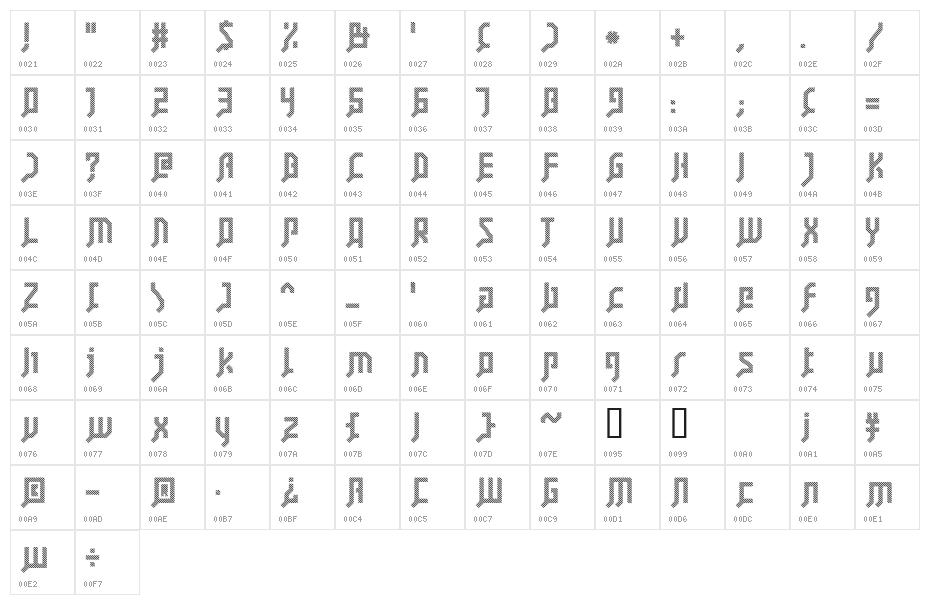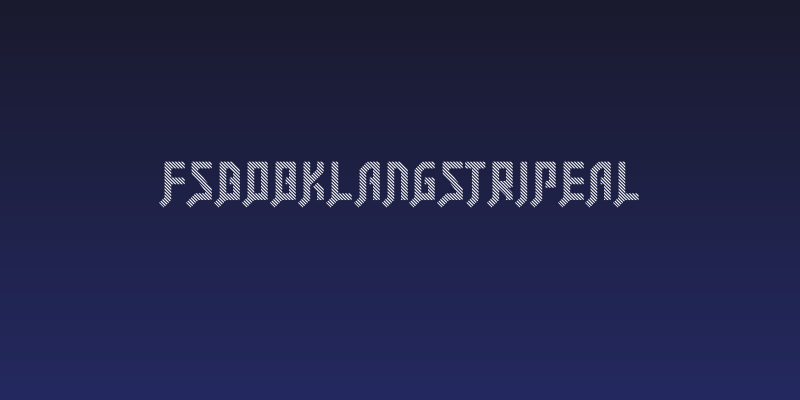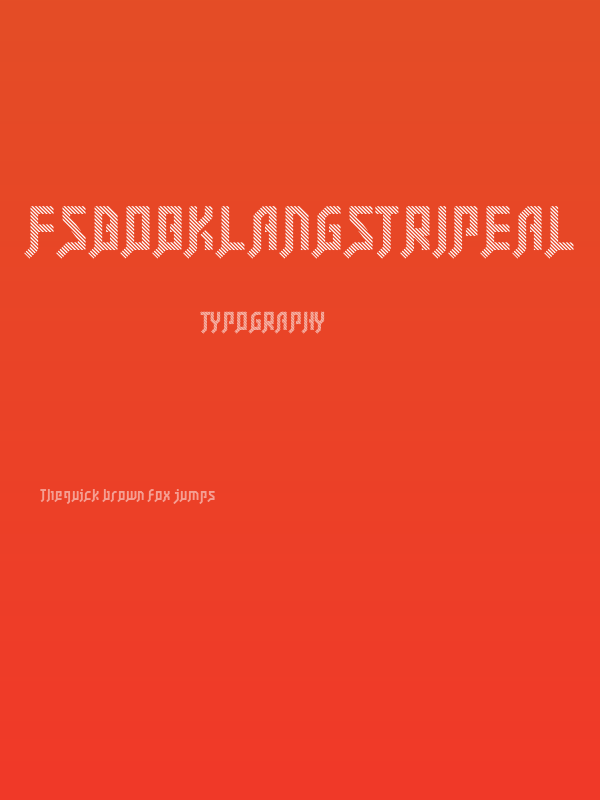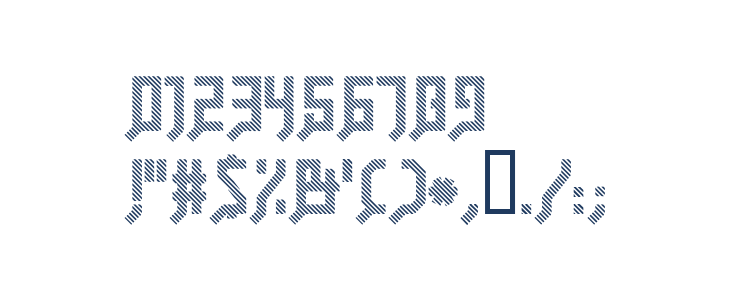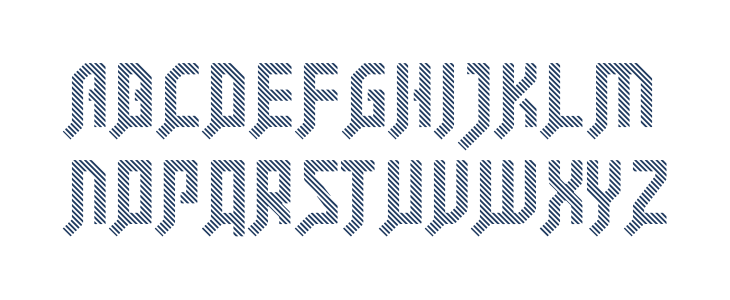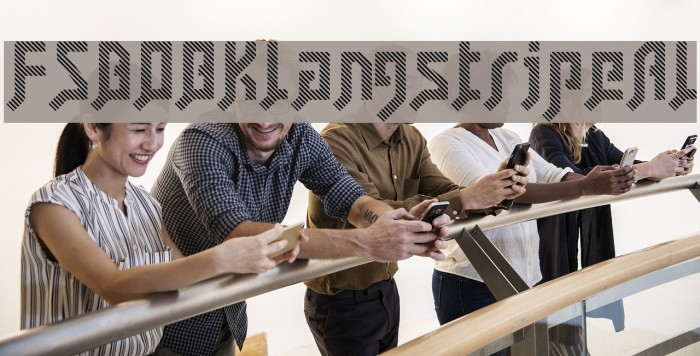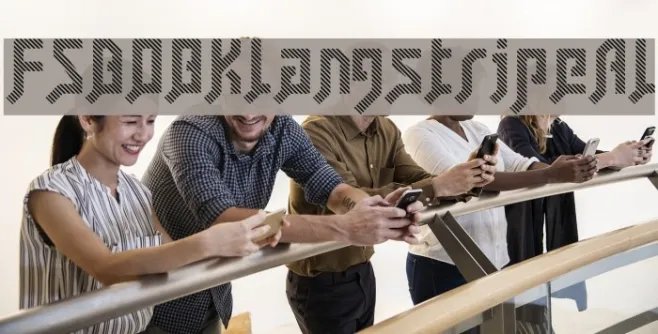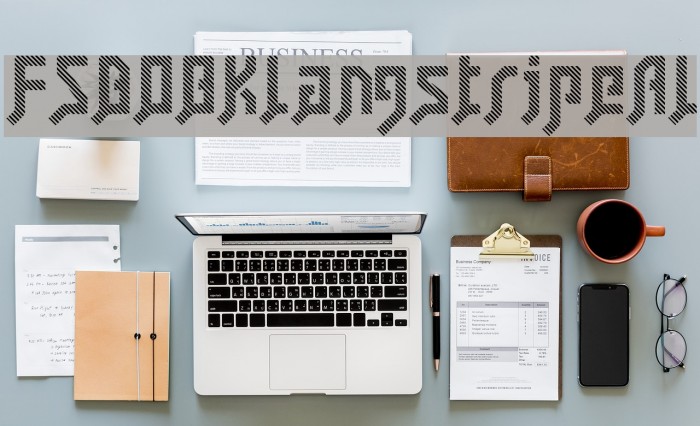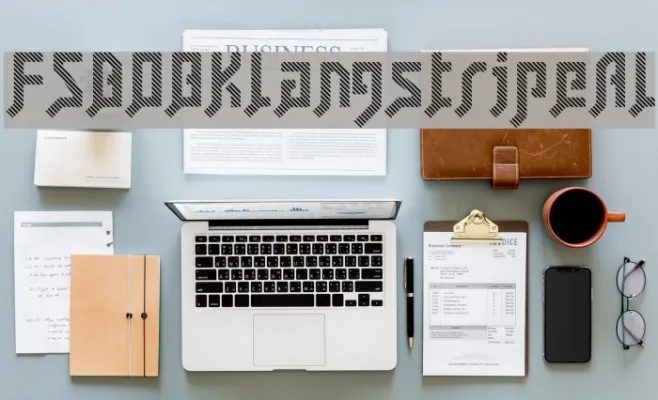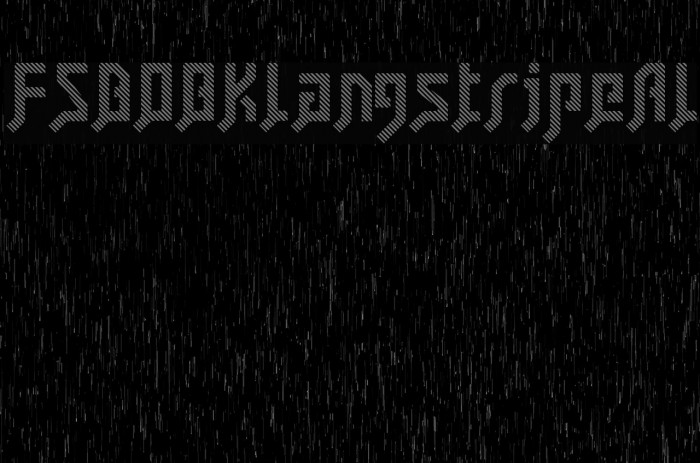
FSB08KlangstripeAl Font
FSB08KlangstripeAl Description
This font features a unique, striped pattern that gives it a dynamic and modern appearance. Each character is composed of diagonal lines, creating a textured effect that is both eye-catching and distinctive. The uppercase and lowercase letters maintain a consistent style, with angular shapes and sharp edges that contribute to its bold look. The numerals and special characters follow the same design principles, ensuring uniformity across all glyphs. This font's design is particularly suited for projects that require a contemporary and edgy aesthetic, making it ideal for creative and artistic applications.
| Proposed Projects | Ideal for branding, posters, album covers, and any project needing a bold, modern look. |